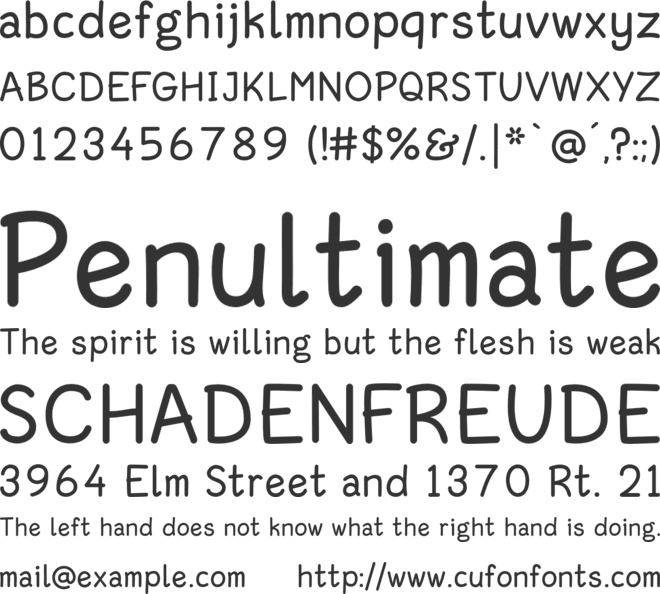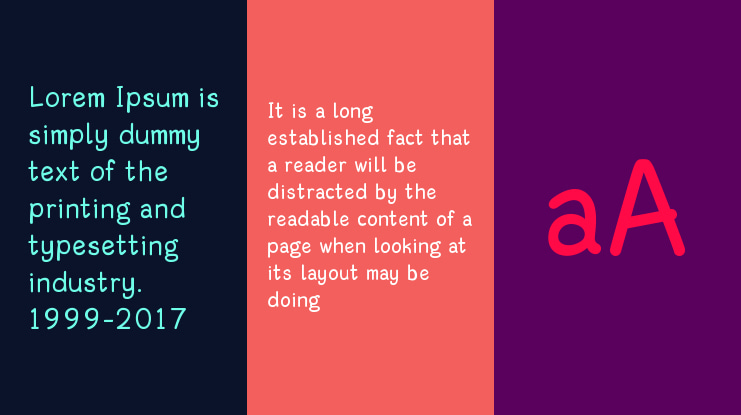
Doge Sans Font
The Doge Sans typeface was created to supplement the well-established Comic Sans for the Dogecoin cryptocurrency. My goal with the font was to create a unique branded typeface that the Doge community can call their own – however, feel free to use the font however you like, for free.
Created by Sebastian Graz.